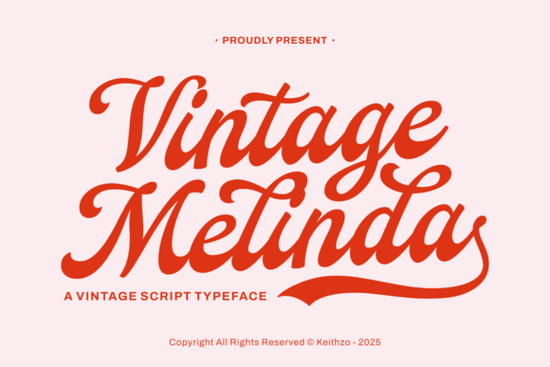
If you're looking for a script font that feels like it was pulled from a well-loved vintage love letter soft, sincere, and quietly elegant you’ll appreciate Vintage Melinda Font. It’s not flashy or overly ornate. Instead, it carries the gentle confidence of mid-century handwriting: relaxed curves, subtle swashes, and a rhythm that breathes naturally across the page. Whether you’re designing wedding stationery, hand-stamped gift tags, or boutique packaging, this font adds warmth without shouting for attention.
What makes Vintage Melinda feel so authentically vintage?
It’s in the details the slight variation in stroke weight, the way letters connect with soft, intentional transitions, and the tasteful decorative alternates included in its PUA-encoded character set. Unlike some retro scripts that lean too heavily into kitsch or exaggeration, Vintage Melinda balances nostalgia with restraint. Its inspiration comes from traditional calligraphy and 1940s–50s typography not as imitation, but as thoughtful reinterpretation. That’s why it works just as well on a linen wedding invite as it does on a small-batch soap label.
Who is this font best suited for?
Designers who value legibility alongside charm will find it easy to pair with clean sans-serifs or textured serif companions. Crafters using Cricut or Silhouette machines appreciate how smoothly its outlines cut and how gracefully its swashes layer in vinyl or foil stamping. Print-on-demand sellers often use it for affection-themed collections think “Love You More Than Coffee” mugs or “You’re My Person” journals because it reads warmly at small sizes and holds presence at large ones. And small businesses building a cohesive brand around authenticity (like apothecaries, bakeries, or handmade goods) find it fits naturally into mood boards and style guides.
How does it compare to other popular script fonts?
Vintage Melinda sits comfortably between the delicate precision of Daintyline Font and the playful bounce of Cute Dog Font. It’s more grounded than Cutie Slime Duo Font, which leans whimsical and cartoonish, and less formal than Lasso Lore Font, which has stronger calligraphic contrast. If you’ve used Vintage Melinda Font before, you know it doesn’t require heavy kerning tweaks or manual spacing adjustments it flows right out of the gate.
Practical tips for getting the most out of it
- Use OpenType features sparingly: The swashes and alternate characters are lovely, but overusing them can dilute readability reserve them for initials or short headlines.
- Pair it thoughtfully: Try it with Montserrat Light, Playfair Display, or even a warm, low-contrast serif like GT America. Avoid pairing with other high-contrast scripts unless you’re aiming for deliberate contrast.
- Test print early: Because of its fine lines and fluid joins, always do a physical proof especially if you’re printing on textured paper or using letterpress.
Where does it shine most?
Real-world projects where tone matters as much as typography: handwritten-style thank-you cards, minimalist baby announcements, artisanal candle labels, boutique bakery menus, or even subtle monograms on fabric patches. It’s also been used successfully in digital contexts like Instagram story templates or email headers where warmth and personality help stand out in fast-scrolling feeds.
One thing users consistently mention: it feels personal, not generic. That’s rare in today’s font libraries, where many scripts prioritize trendiness over timelessness. Vintage Melinda doesn’t chase what’s viral it offers something quieter and more lasting.